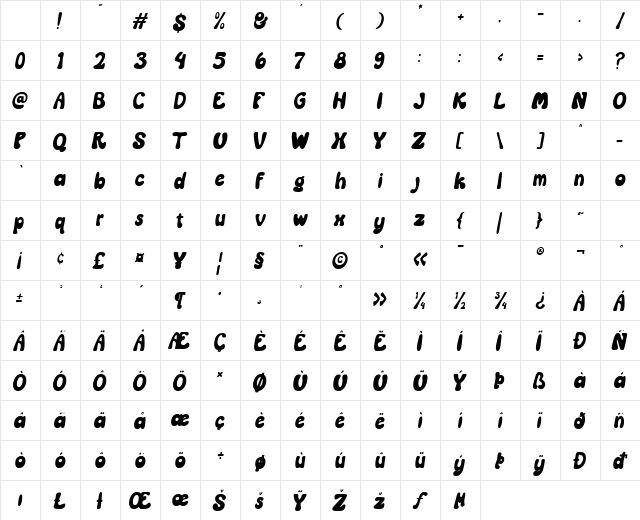
Sunday Milk is a composed and adaptable typeface that performs quietly and consistently across a wide range of design contexts. The slanted form adds forward momentum and visual energy.
Pro Tip: Use Sunday Milk for emphasis, pull quotes, and subheadings where its slanted energy can add rhythm to the layout.